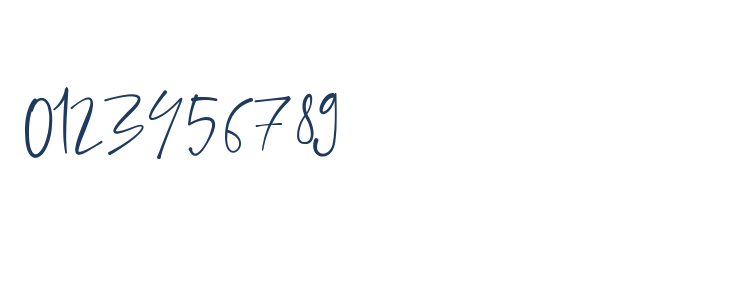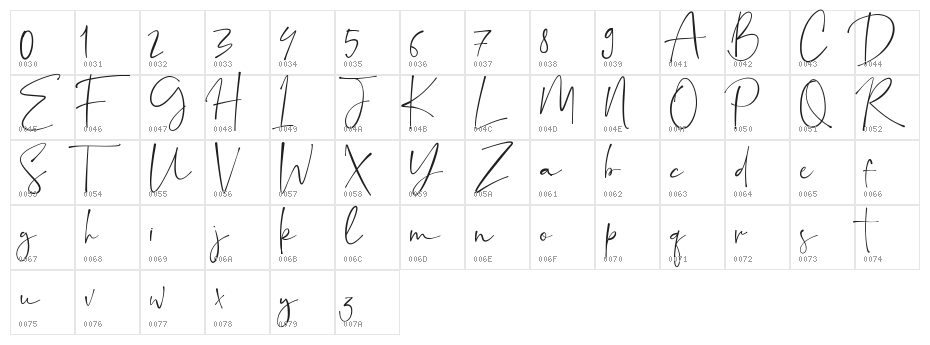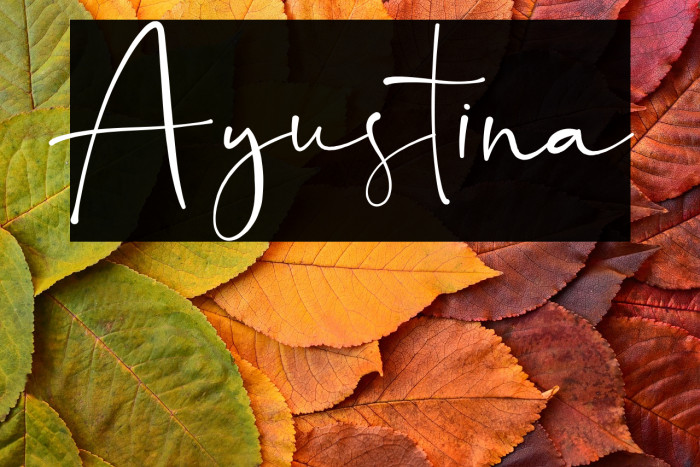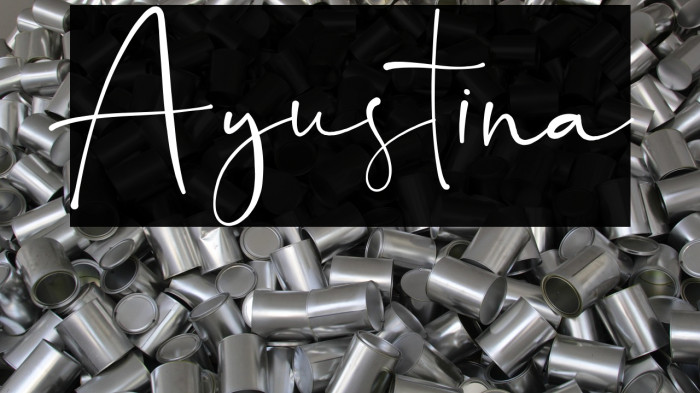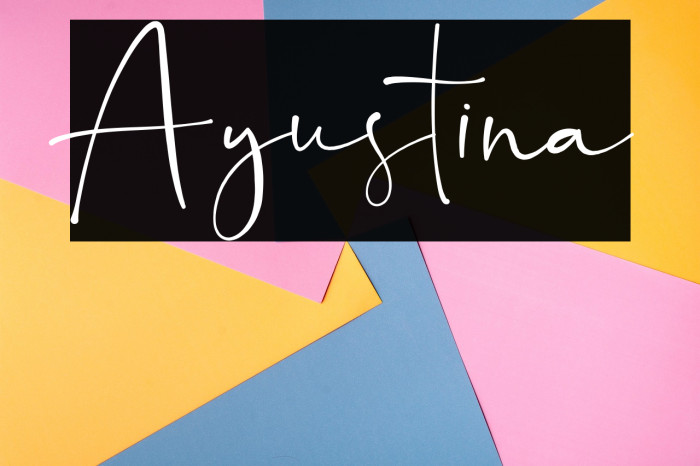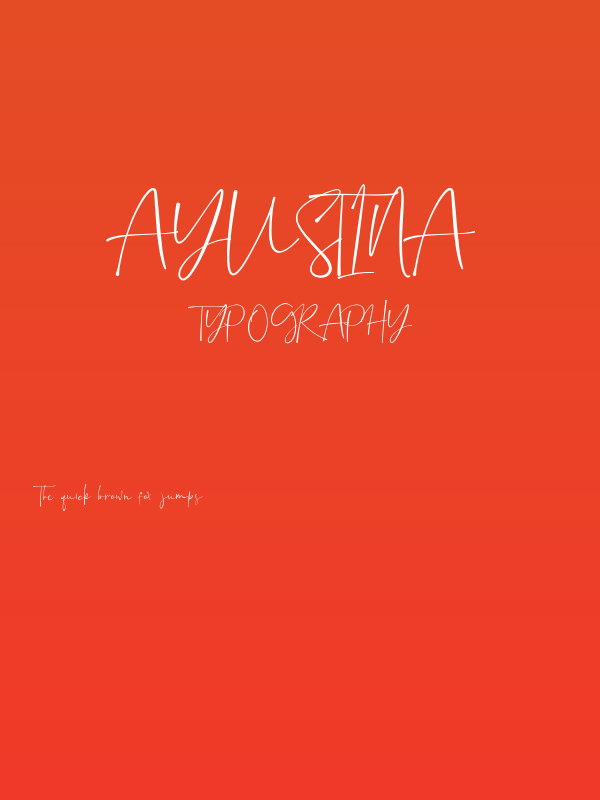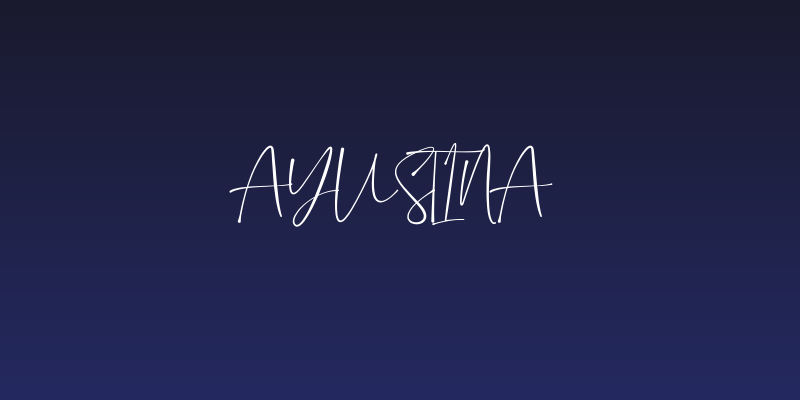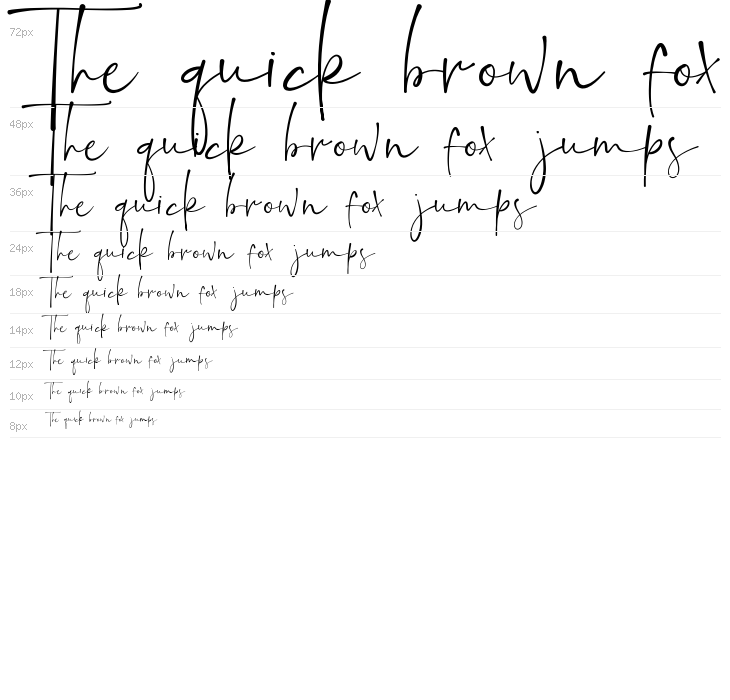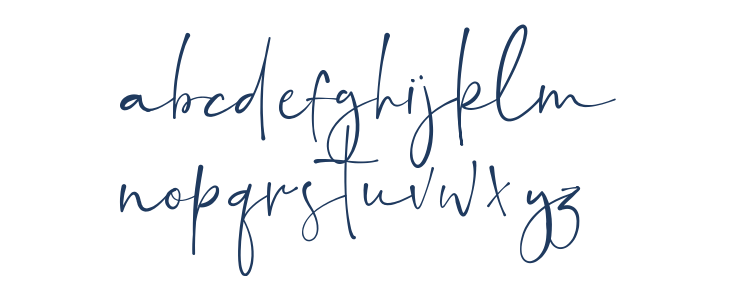
Ayustina Font
Ayustina Description
This font features a dynamic, handwritten style with a casual and flowing appearance. The uppercase letters are tall and slender, while the lowercase letters maintain a consistent fluidity, giving the font a cohesive look. The numbers are similarly styled, with a playful yet elegant touch. The strokes vary in thickness, adding a sense of movement and personality. This font is ideal for projects that require a personal or artistic touch, such as invitations, greeting cards, or creative branding. Its unique character makes it stand out, while still being legible and versatile.
| Proposed Projects | Invitations, greeting cards, creative branding, artistic projects. |